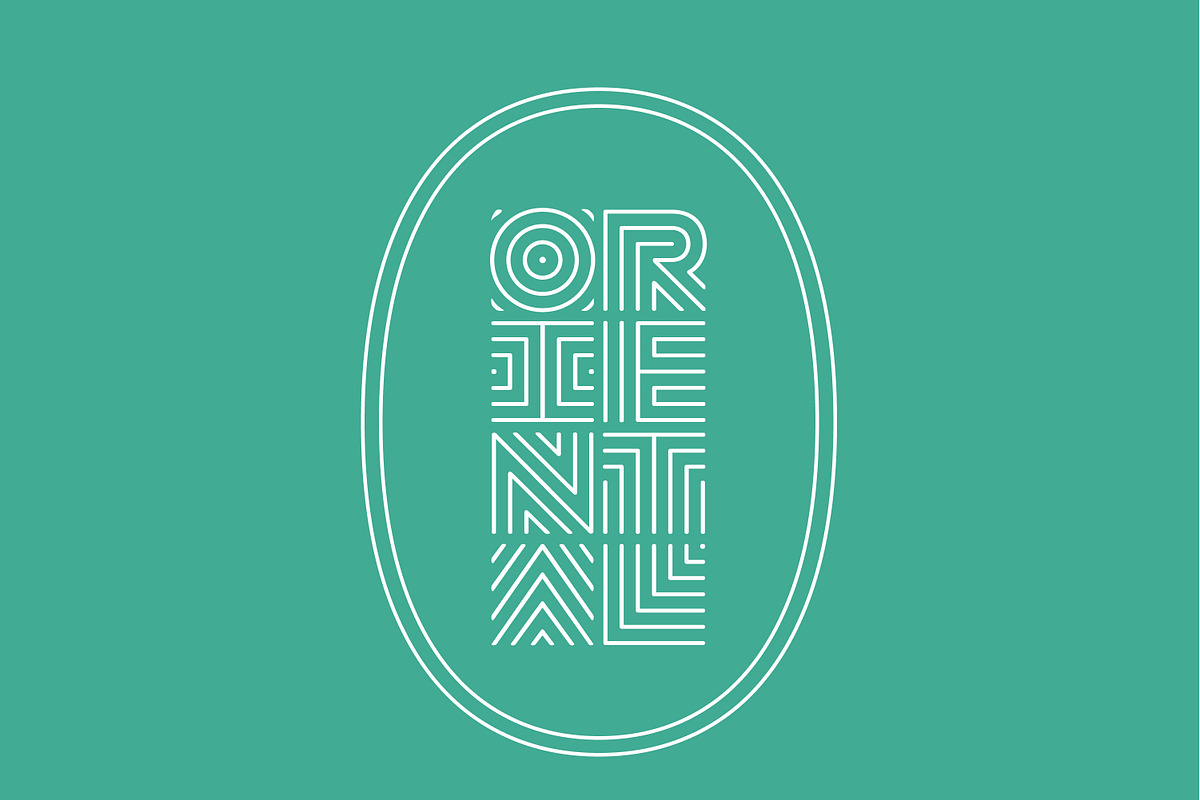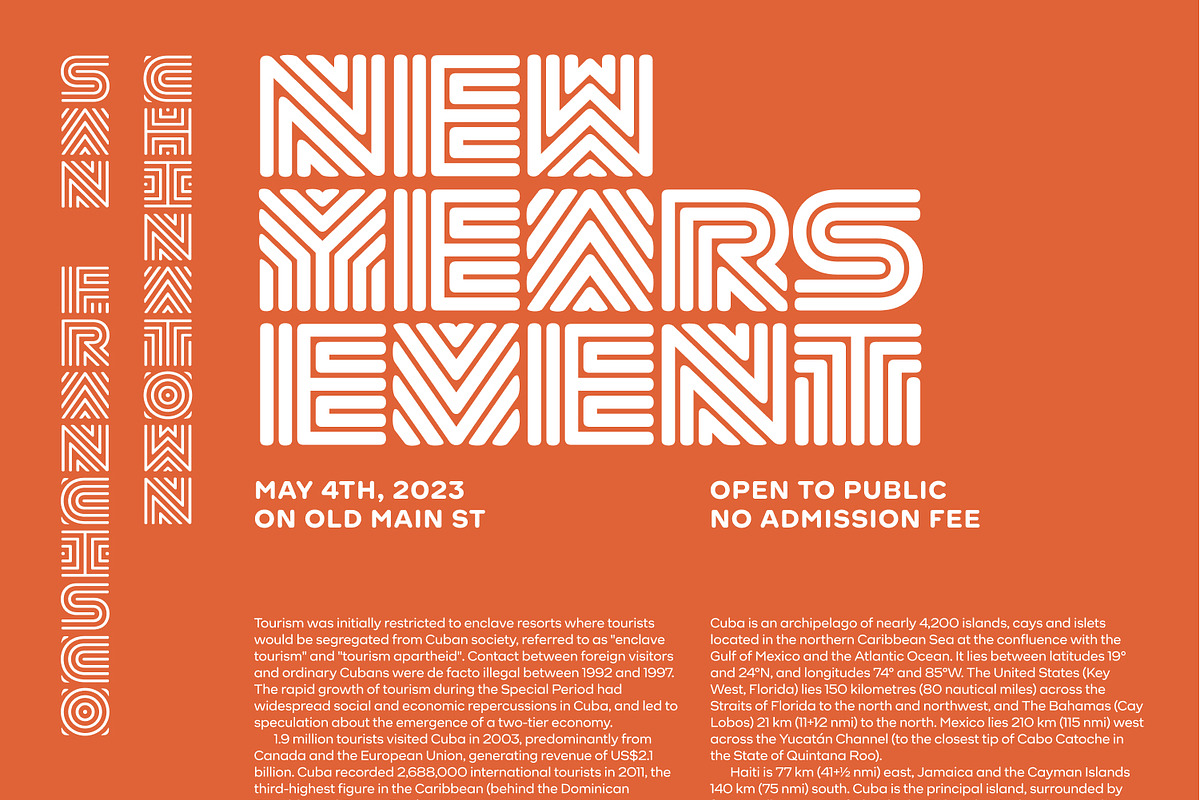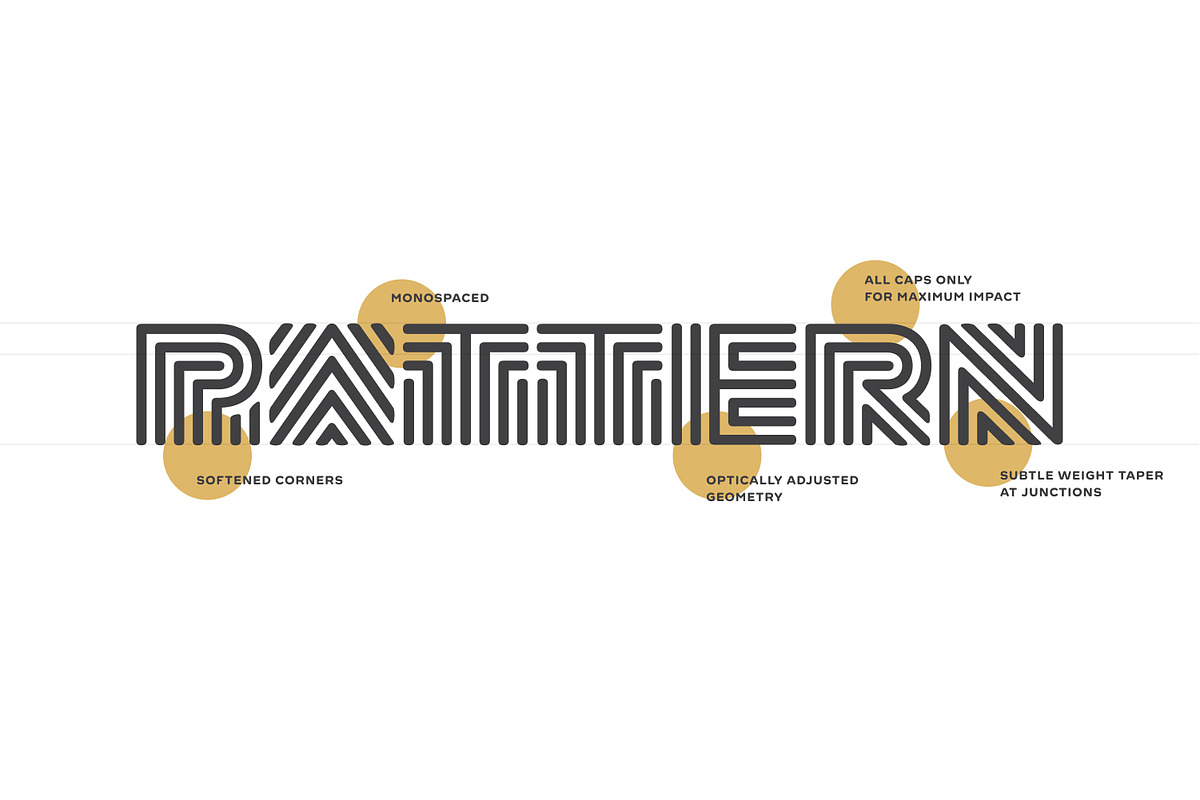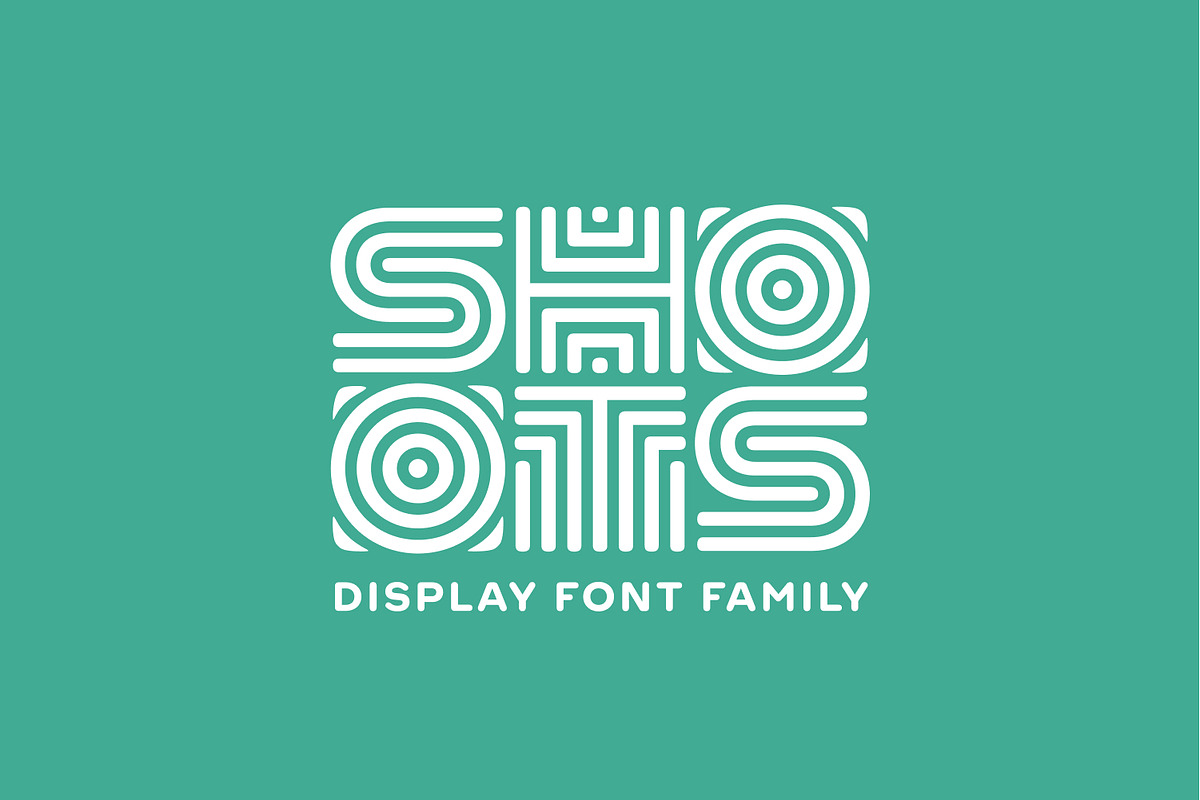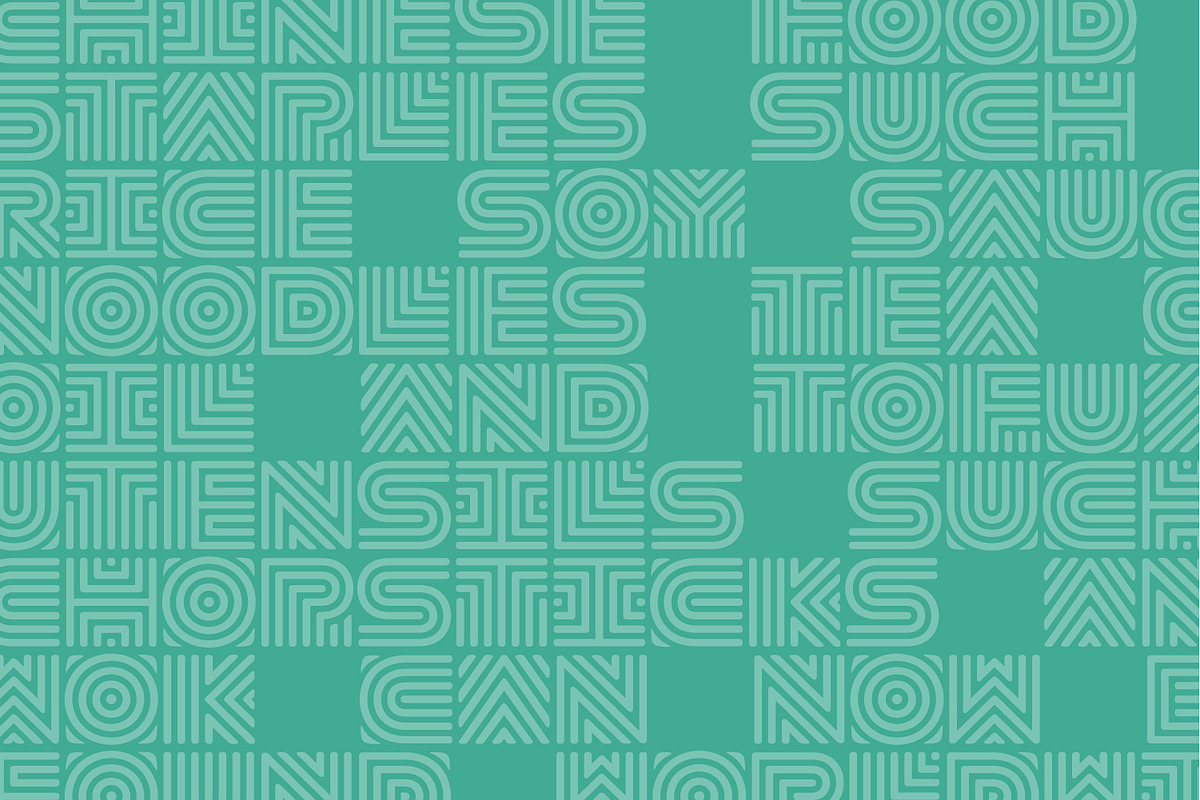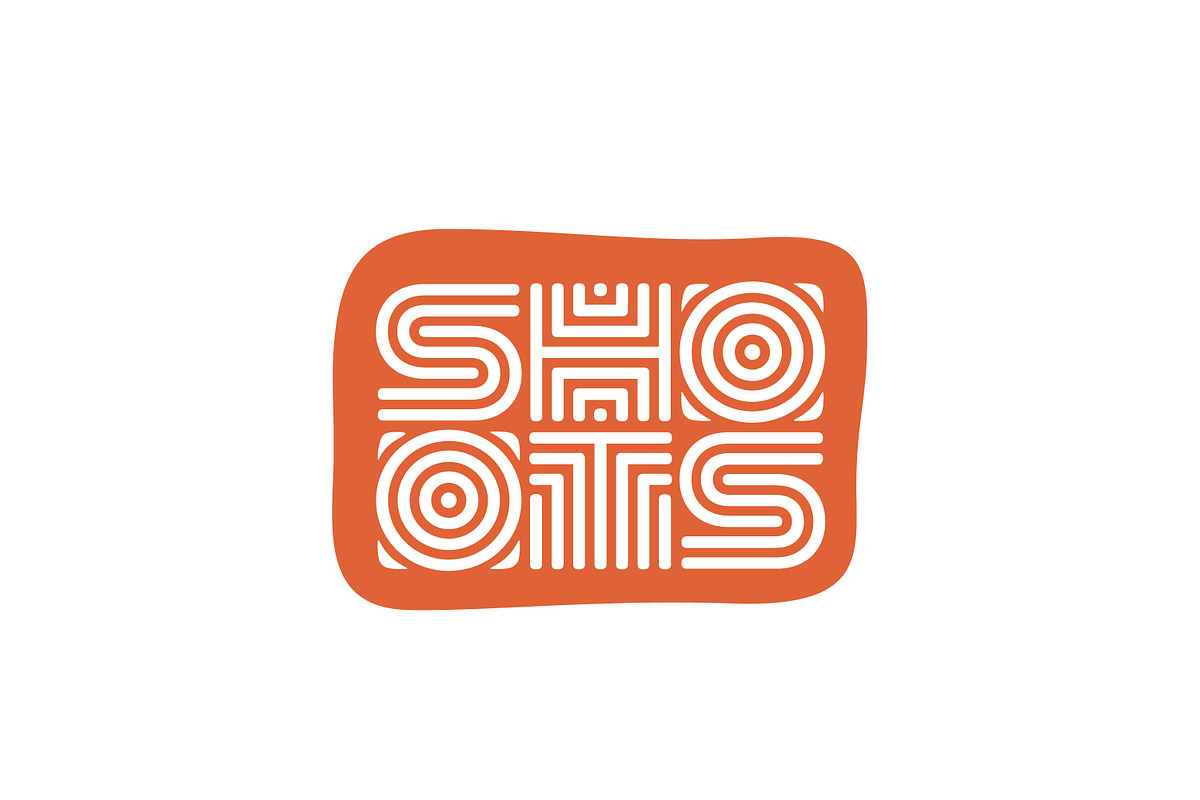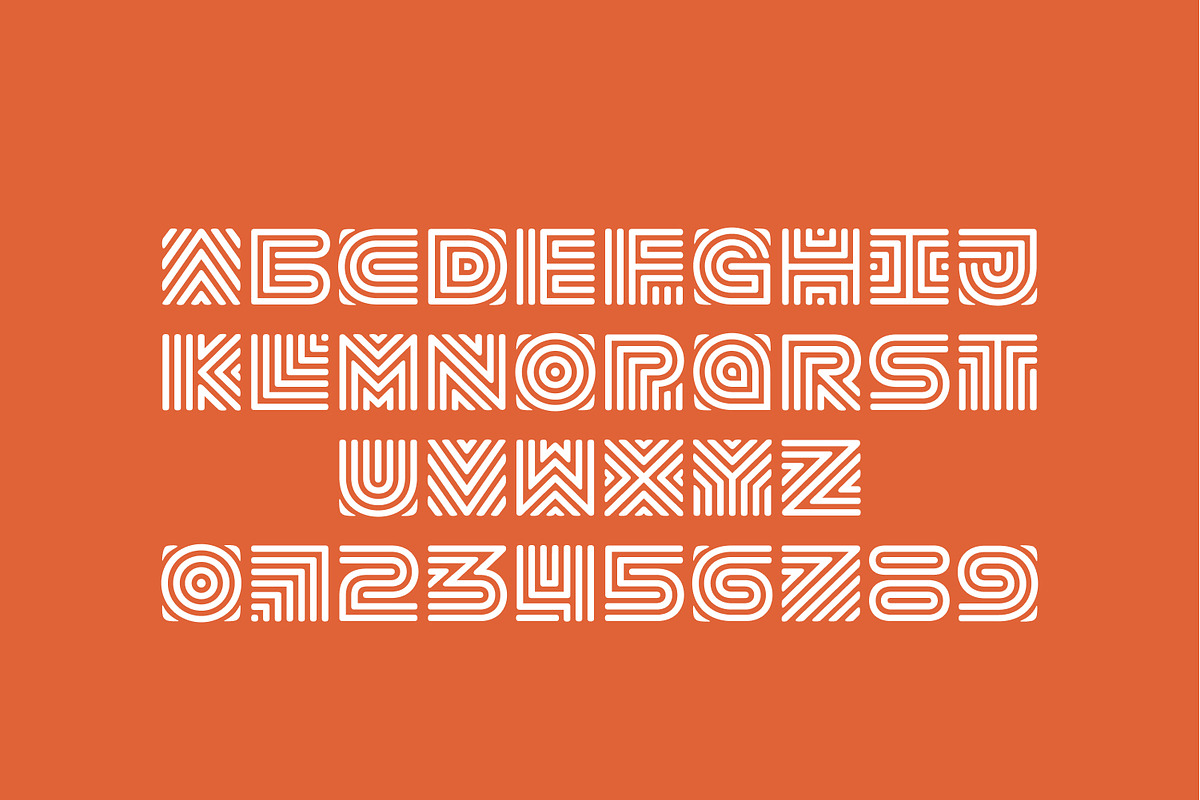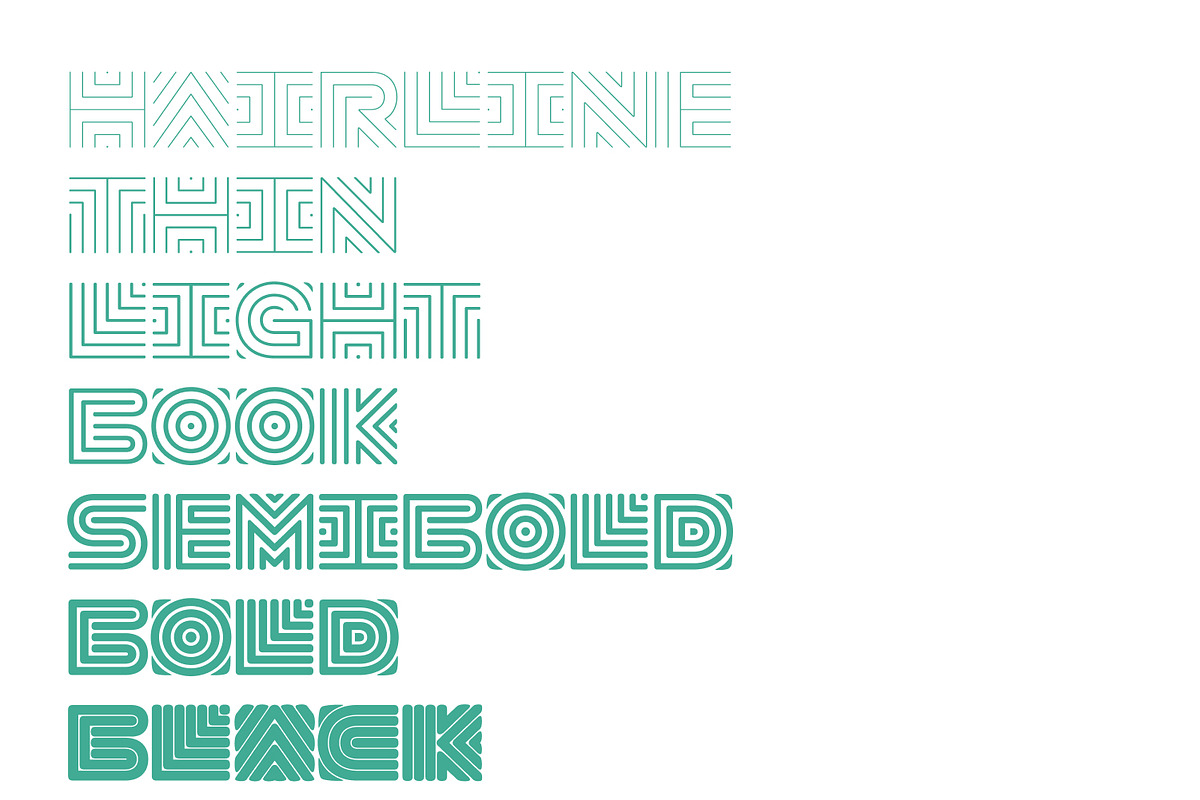
Shoots | Asian Display Font
Shoots was designed for maximum impact and achieves a surprising versatility. Based on Asian wood block prints, Shoots feels at home in any Asian branding project, menu, or invitation. Being monospaced, Shoots is perfectly at home typed horizontally or vertically.